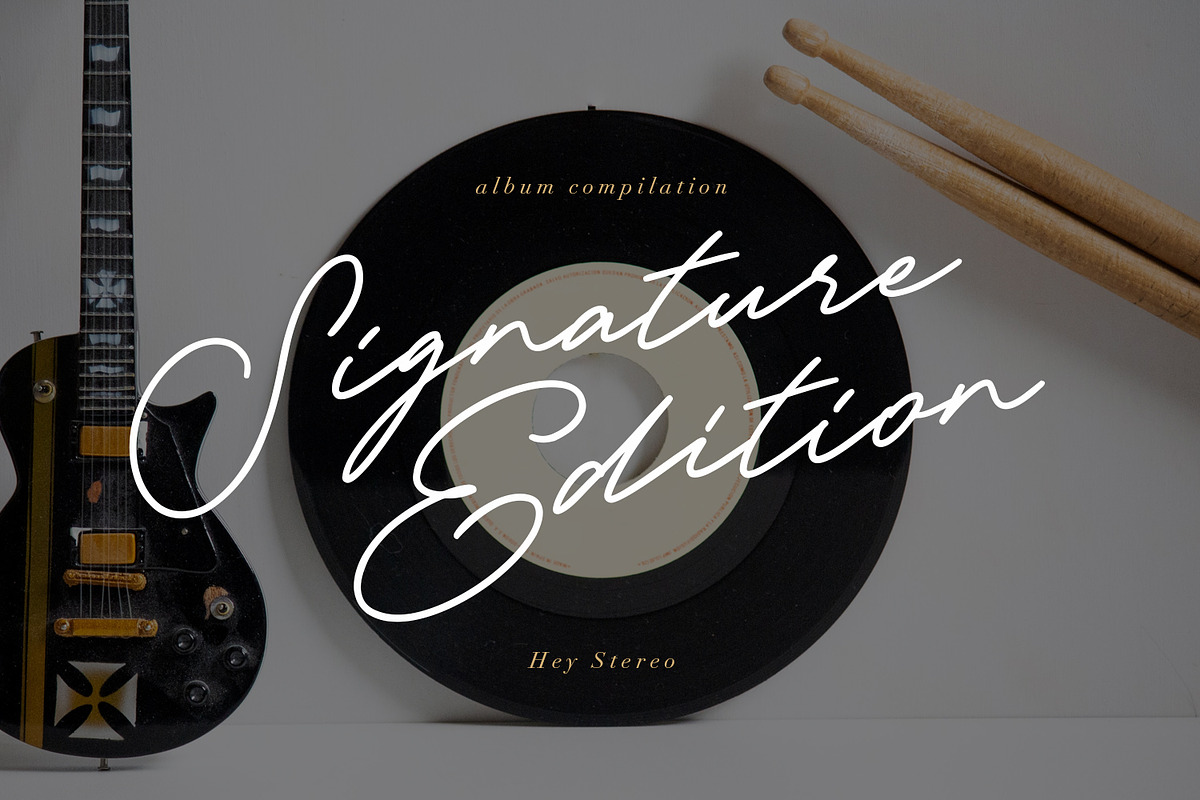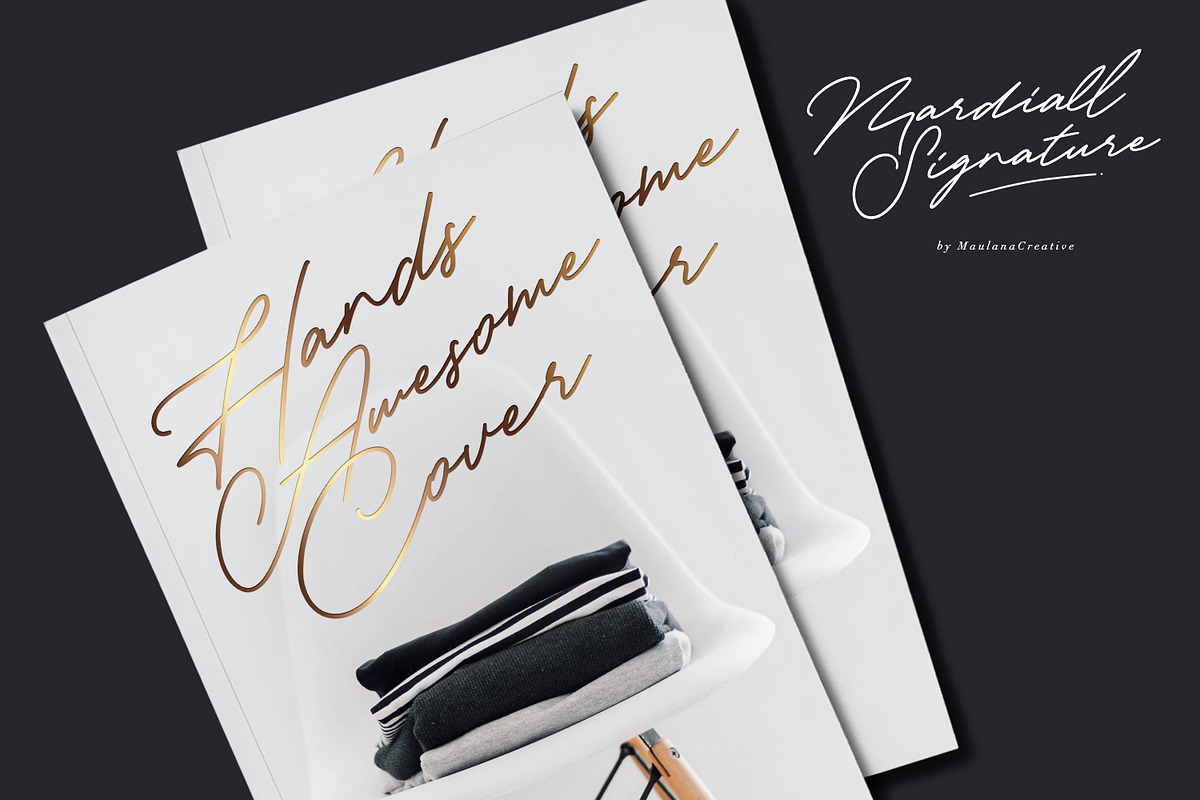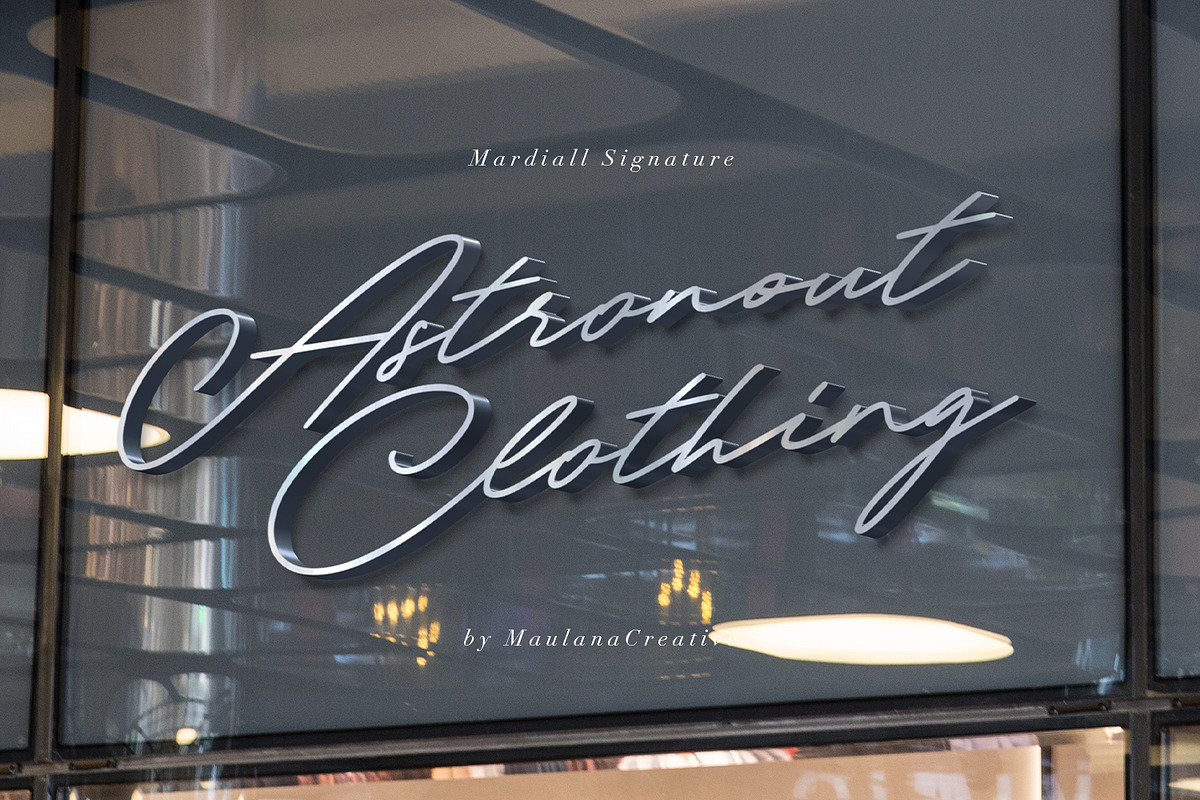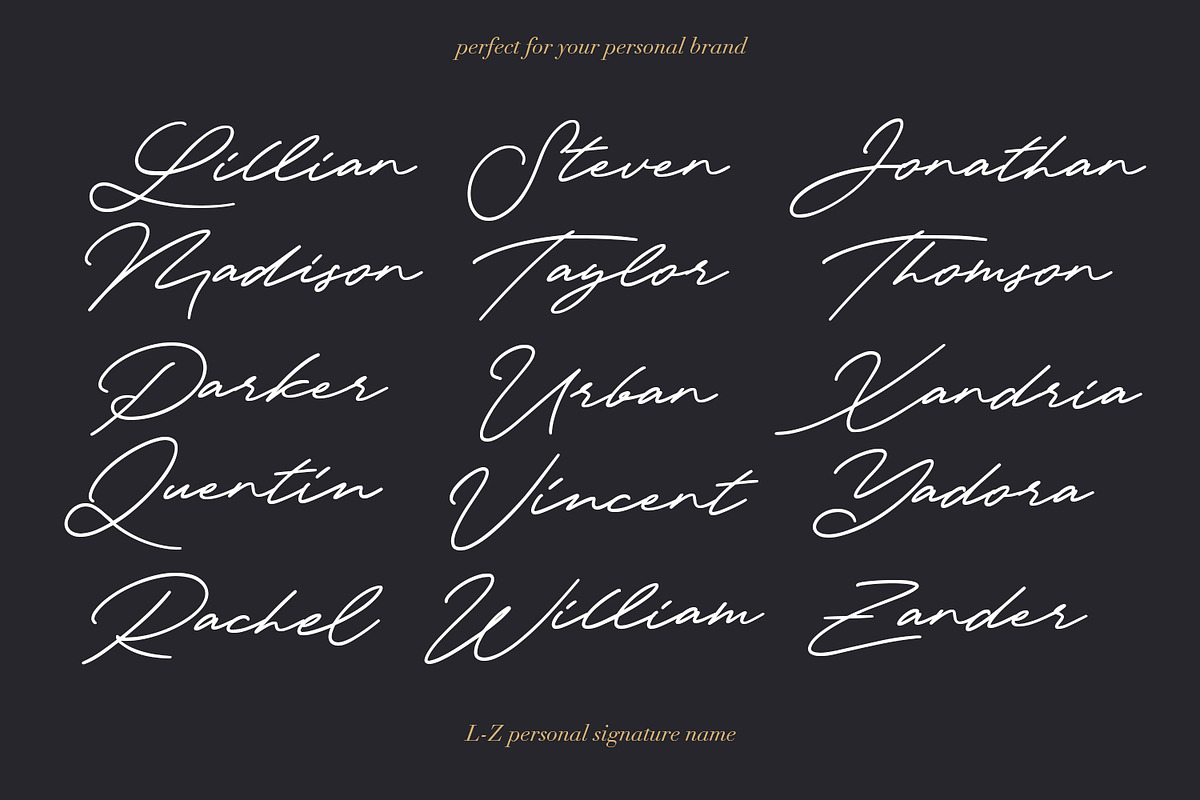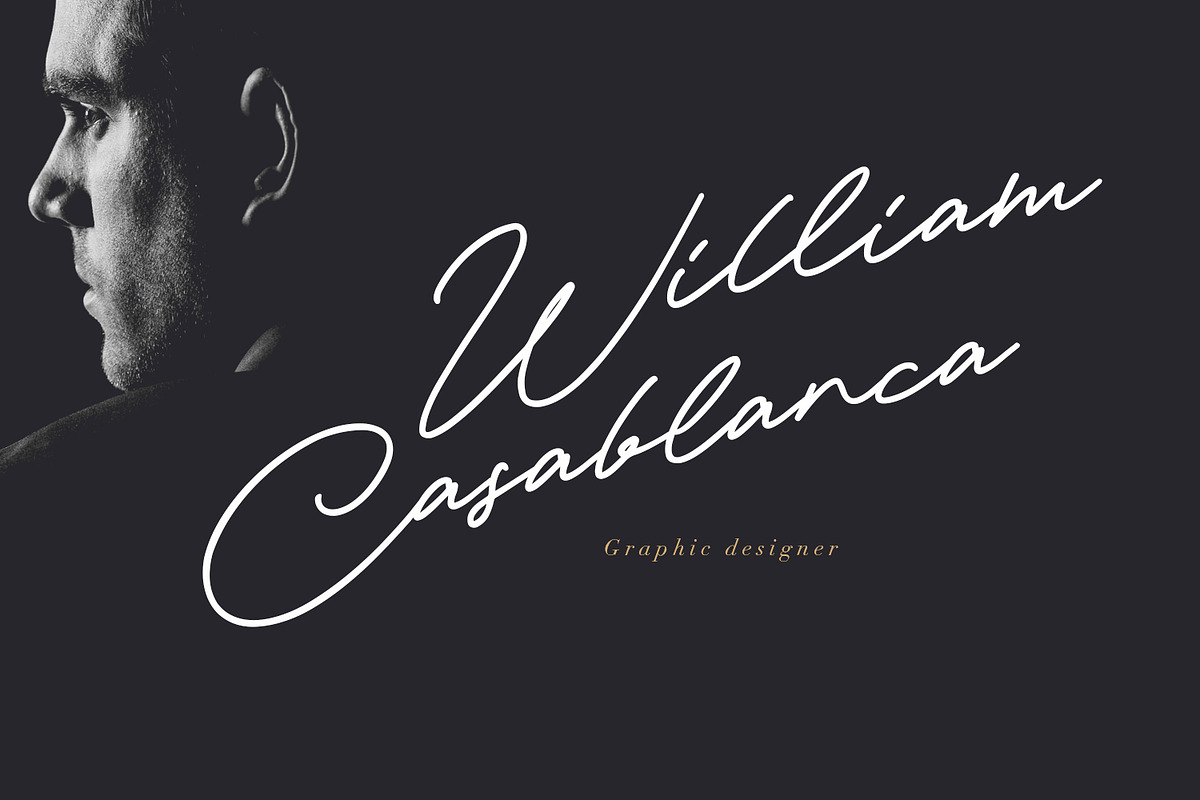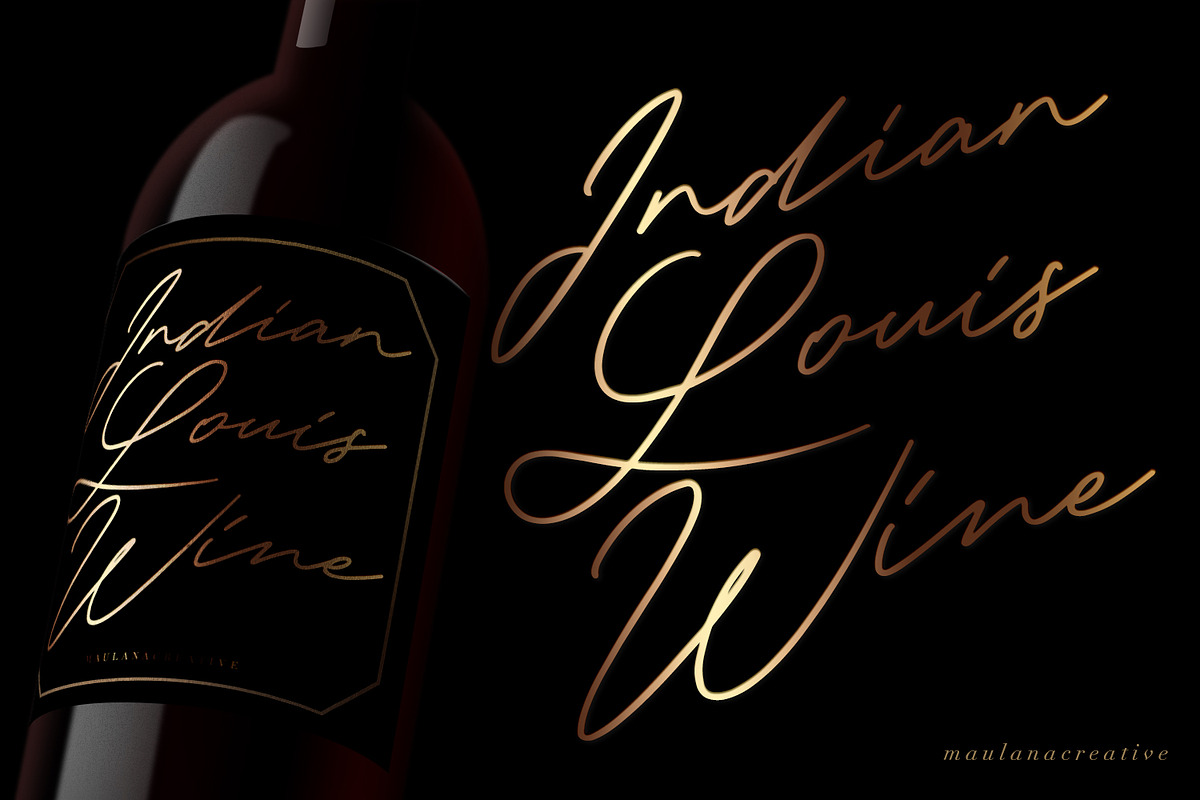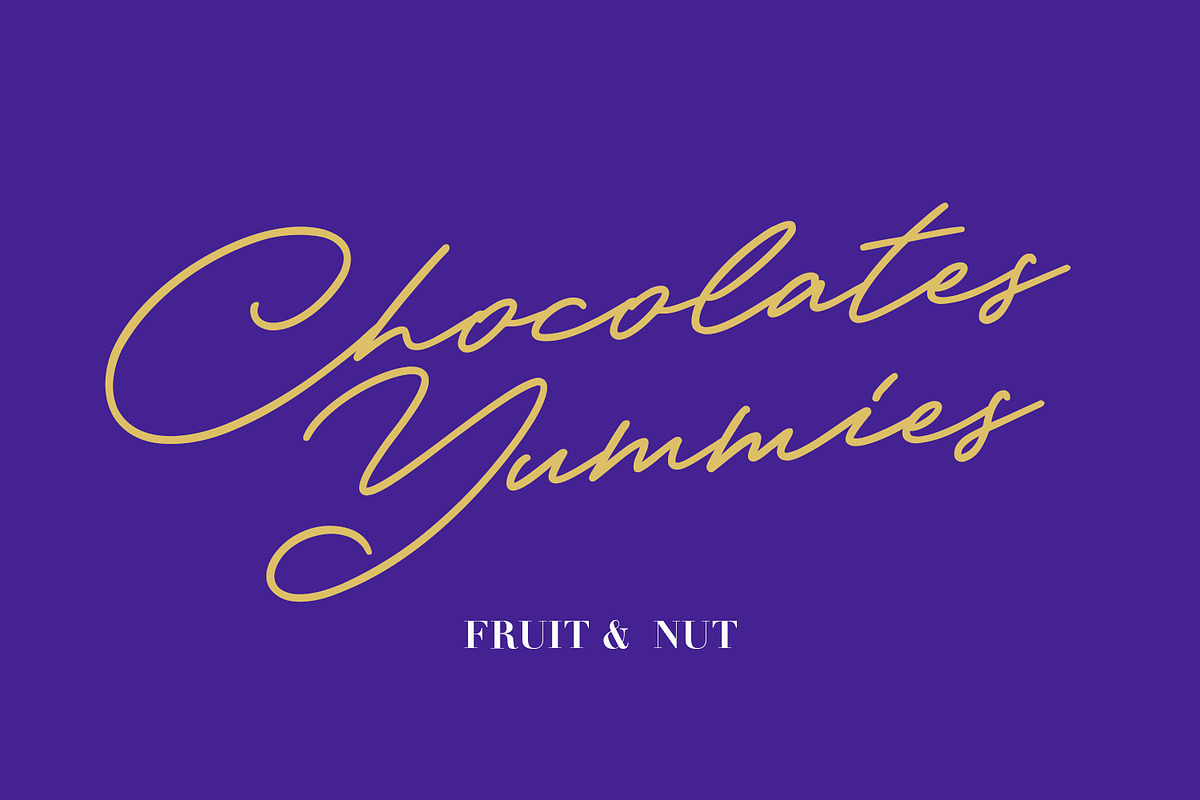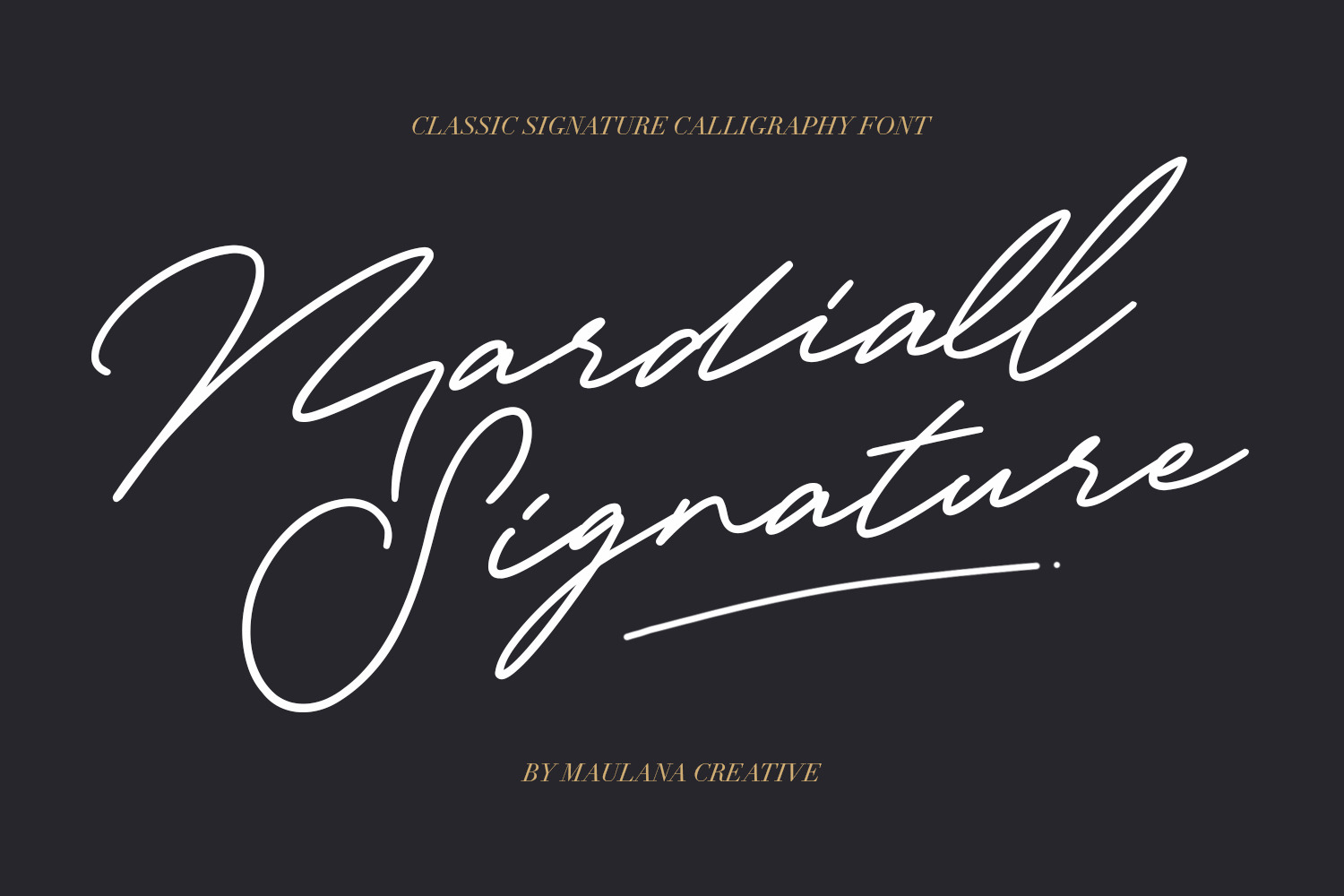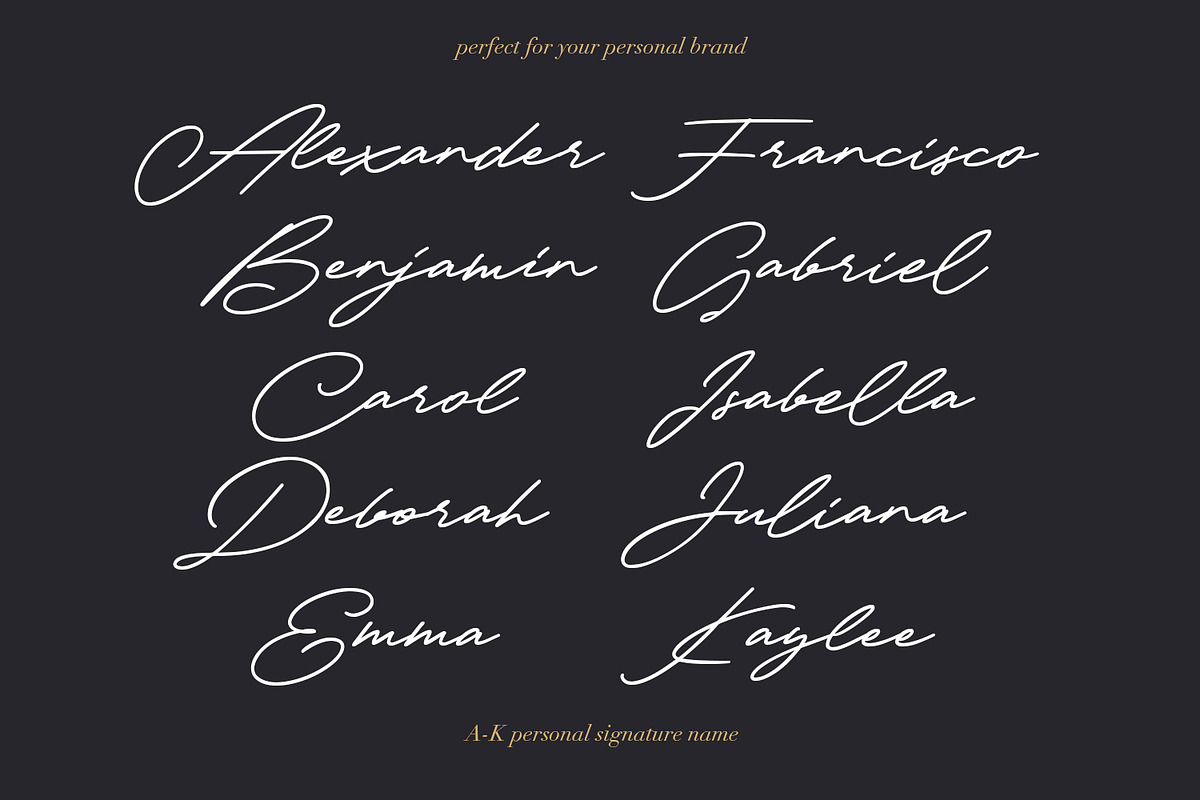
Mardiall Signature Font
Give your designs an authentic handcrafted feel. “Mardiall Signature” is perfectly suited to stationery, logos and much more.